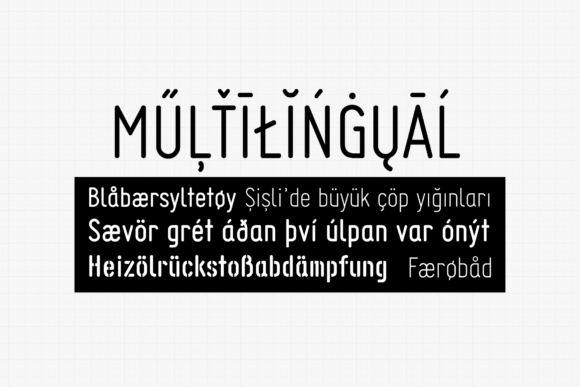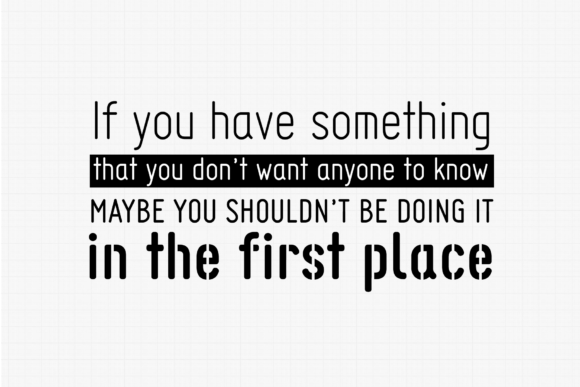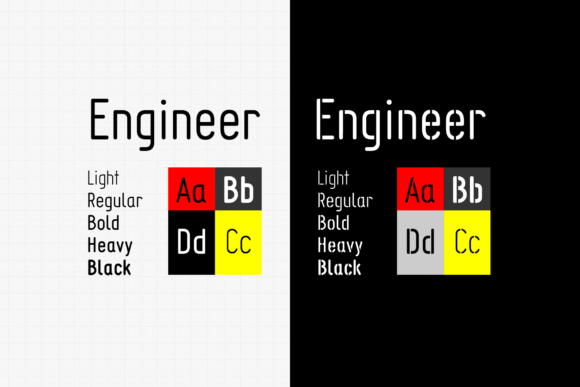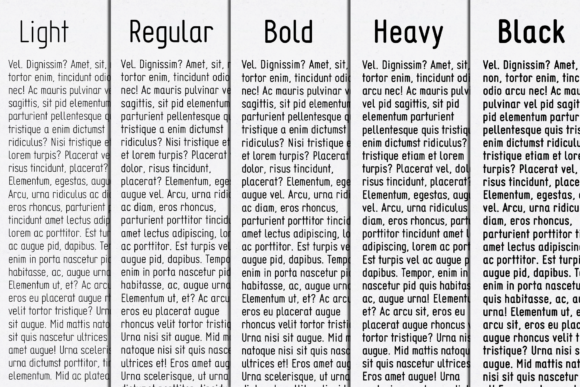
Introduction to Engineer Family Font
As a designer, there’s nothing quite like the thrill of bringing a creative project to life. The blank canvas, the endless possibilities, and the satisfaction of watching your vision take shape – it’s a feeling like no other. But, let’s face it, sometimes the perfect design can be held back by the wrong font. That’s where the Engineer Family Font comes in.
With its sleek, modern aesthetic and incredible readability, the Engineer Family Font is the perfect addition to any design. Whether you’re working on a high-profile campaign or a personal project, this font is sure to elevate your work to the next level. And the best part? It’s completely free to download, making it a valuable resource for designers of all levels.
So, what sets the Engineer Family Font apart from the rest? For starters, its transparent background allows for seamless integration with your design, while its high-quality typography ensures that your message is conveyed with clarity and precision. In short, the Engineer Family Font is a game-changer for designers looking to take their work to the next level.
Key Features of Engineer Family Font
- High-quality design: The Engineer Family Font is a professional and clean font suitable for various creative projects, including technical documents, presentations, and more.
- Transparent background: This font features a transparent background, making it ideal for designs that require a high level of customization and flexibility.
- High-resolution design: The font is designed at a high resolution, making it suitable for use in large-scale designs, such as billboards, posters, and more.
- Unique characteristics: The Engineer Family Font features a unique blend of modern and technical elements, making it an excellent choice for designers who want to add a touch of sophistication to their creative projects.
- Perfect for technical projects: The font is designed specifically for technical and engineering projects, making it an excellent choice for designers who work in these fields.
Honest Review: Engineer Family Font
I recently stumbled upon the Engineer Family Font, and I must say it’s been a game-changer for my creative projects. The font’s clean and modern design makes it perfect for any design resource I need.
What works well is the font’s versatility. It’s available in a range of weights and styles, making it easy to use in various design contexts. The high quality of the font is evident in its crisp lines and well-balanced typography. I particularly like that it’s available for free download, which is a huge plus for designers on a budget.
Some of the key features of the Engineer Family Font include:
- High-quality typography with crisp lines and well-balanced design
- Available in various weights and styles
⚠️ One limitation of the font is that it may not be suitable for complex, multi-line text, as the design can become slightly overwhelming. However, for most design needs, it’s a great choice.
Overall, I’m thoroughly impressed with the Engineer Family Font. It’s a fantastic addition to any designer’s toolkit, and I highly recommend it for any creative project.
The Engineer Family Font is a versatile and high-quality design resource perfect for creative projects. This font is available for free download and features a transparent background, making it easy to integrate into various design applications.
Using Engineer Family Font in Design Applications
Engineer Family Font can be used in a variety of design applications, including:
Tips for Getting the Most Out of Engineer Family Font
To get the most out of the Engineer Family Font, consider the following tips:
- Experiment with different font sizes and styles to create a unique and eye-catching design.
- Combine the Engineer Family Font with other design resources, such as images and graphics, to create a visually appealing design.
- Use the transparent background feature to create a seamless design that integrates with other elements.
The Engineer Family Font is ideal for a variety of design projects, including: